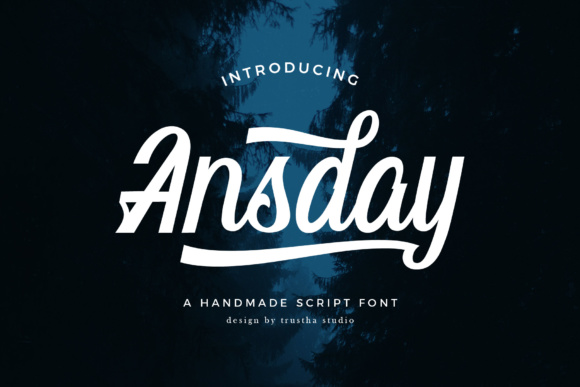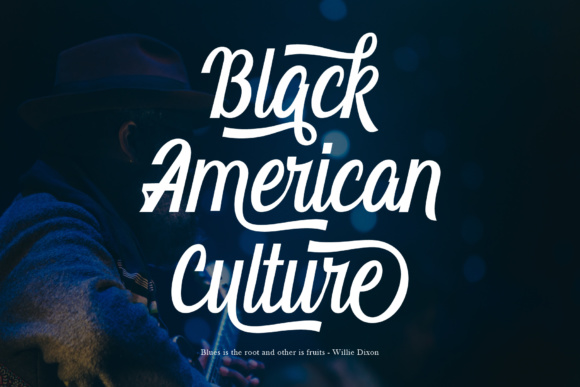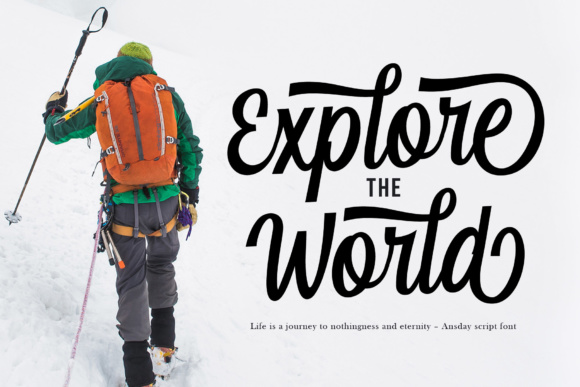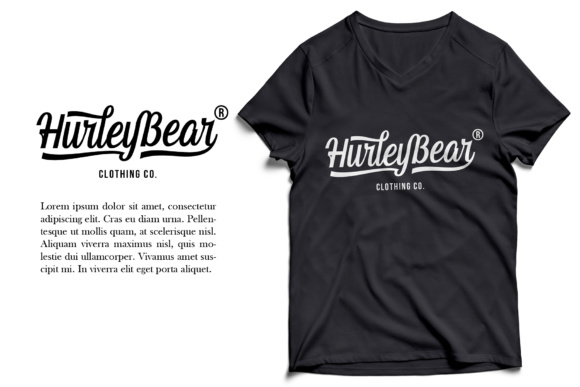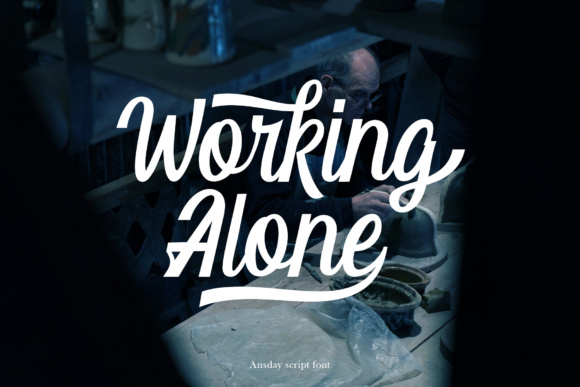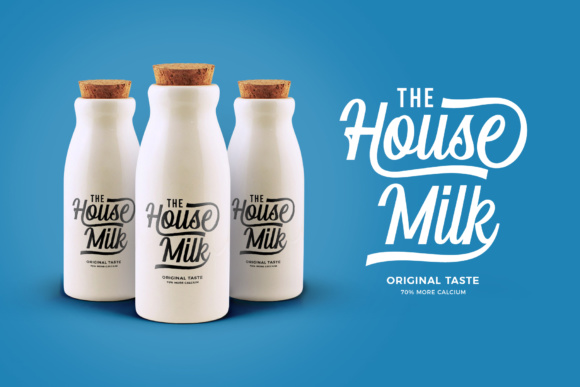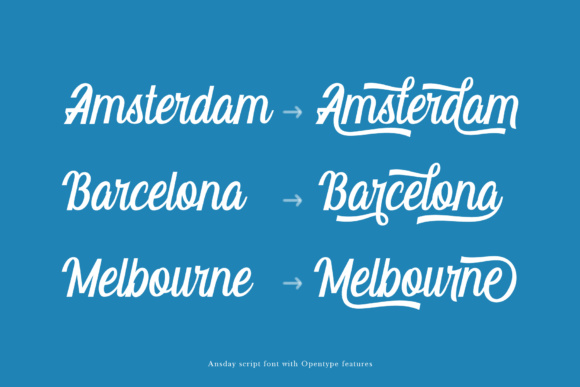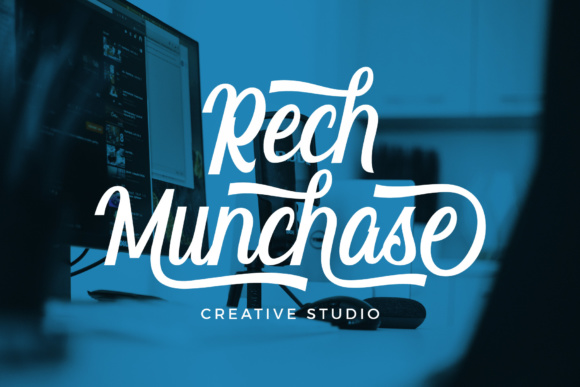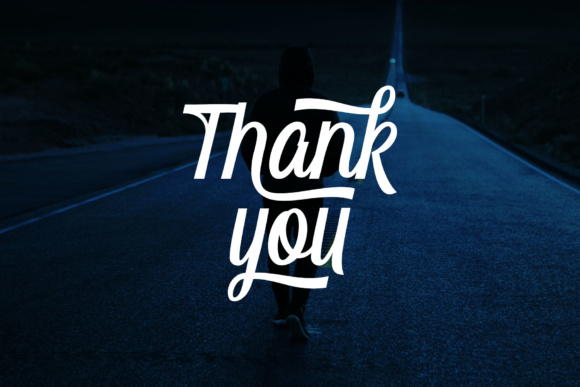
Ansday Font
About Ansday Font
Ansday is a handmade script font. Ansday is perfect for logotypes, posters, apparel designs, labels, website headers and much more!